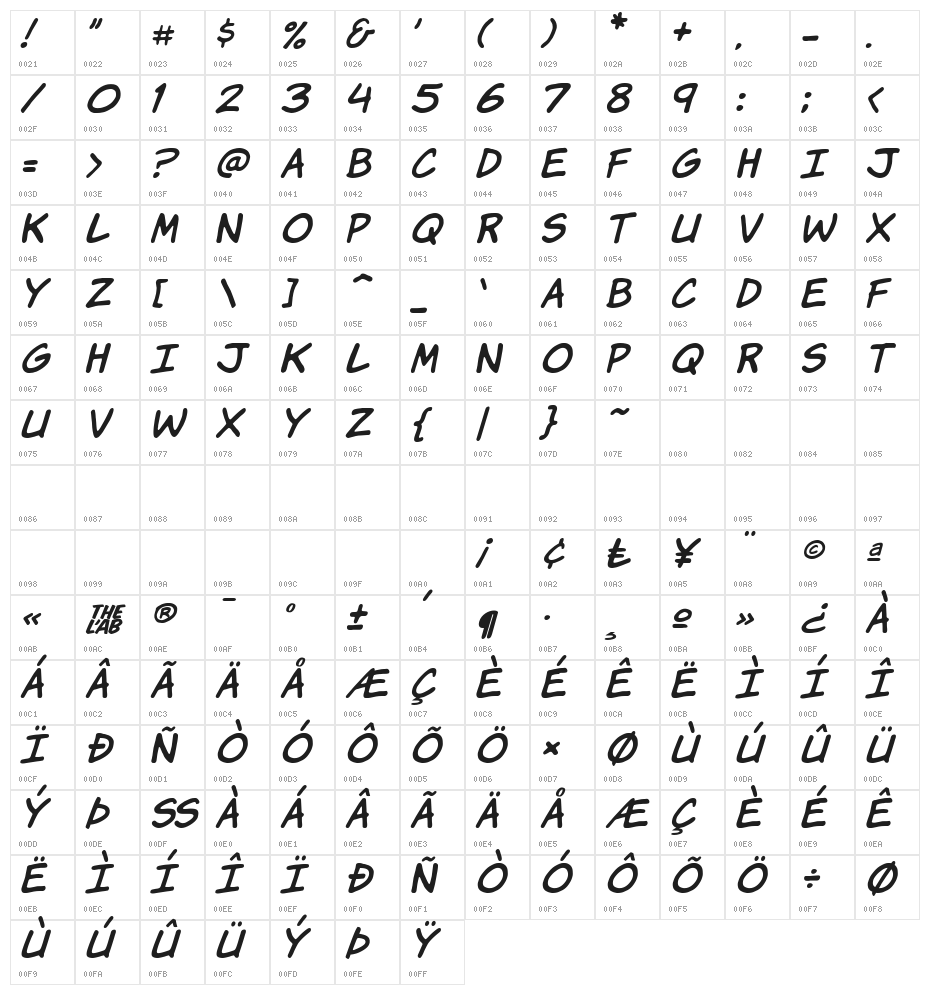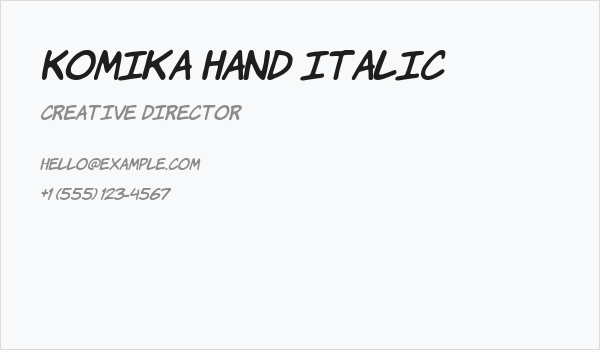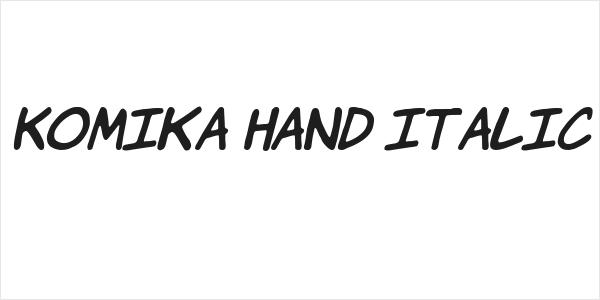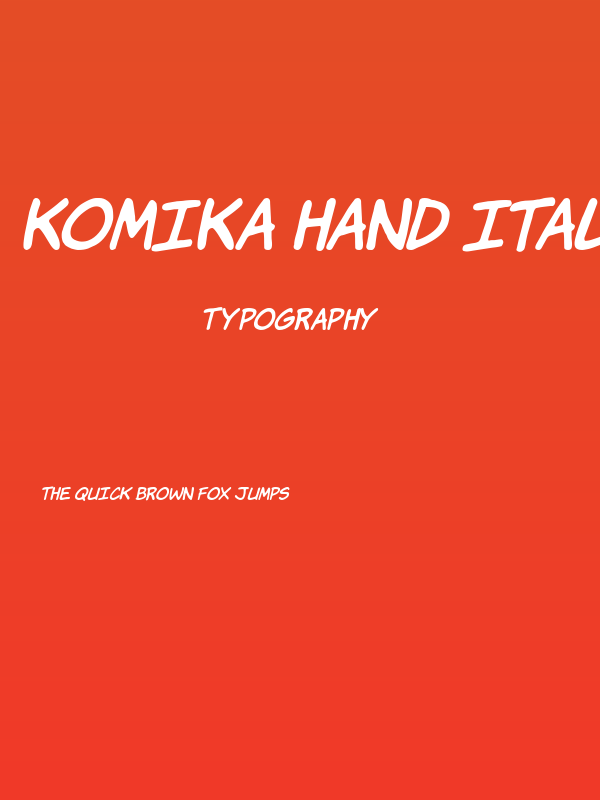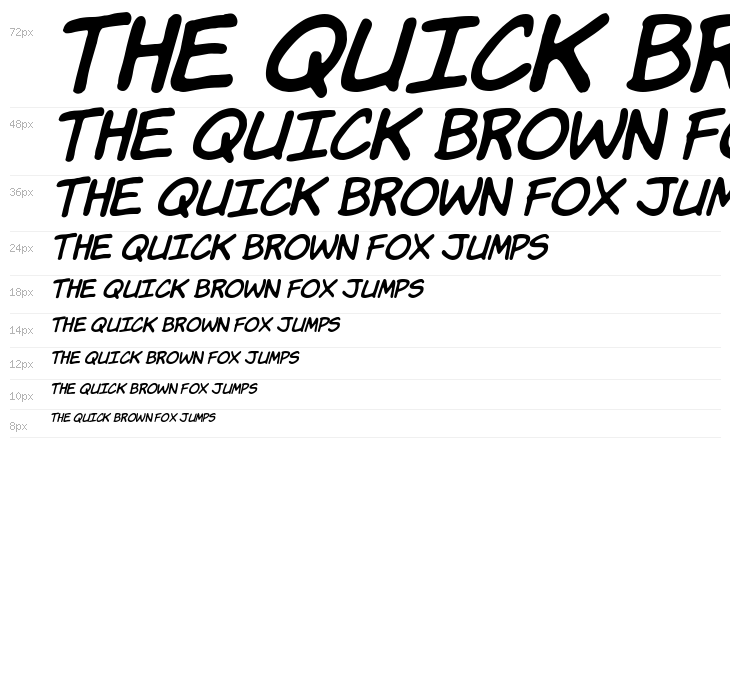
Komika Hand Italic Font
Komika Hand Italic Description
This playful and energetic font features a handwritten style with a casual, informal appearance. The letters are slightly slanted, giving it a dynamic and lively feel. The strokes are bold and rounded, creating a friendly and approachable look. The font maintains consistent thickness throughout, with smooth curves and a slightly exaggerated flow that enhances its whimsical character. The spacing between characters is relatively tight, which adds to its cohesive and unified appearance. This font is ideal for projects that require a fun and engaging touch.
| Proposed Projects | Ideal for comic books, children's books, playful branding, and casual invitations. |